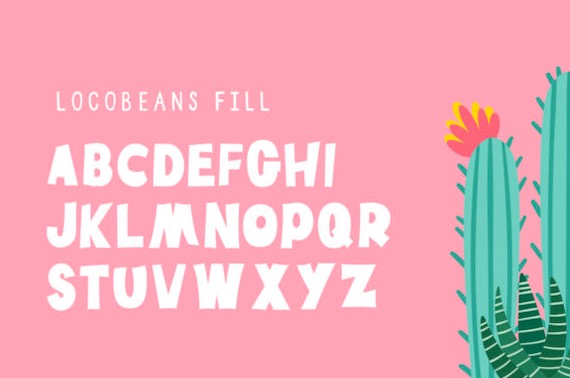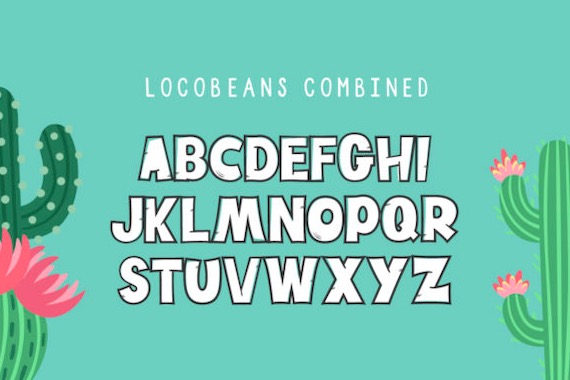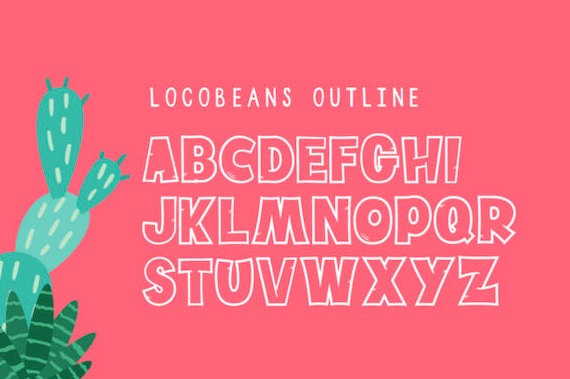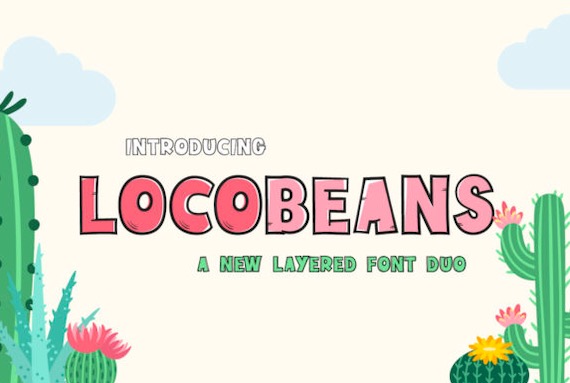
Locobeans is a fabulous font duo that was created and shared by Maroon Baboon. This versatile font will give your design projects a cheerful and unique touch. And with its gorgeous features, Locobeans will take a new look at a sans serif. This is far from boring as we basically took a classic sans style, threw it on a fun bus, and drove it around until it announced it was cool enough to be available! So grab your copy now with both versions (outline and fill) working well alone or looking rad together!
Locobeans Display Font
Publisher: Maroon Baboon